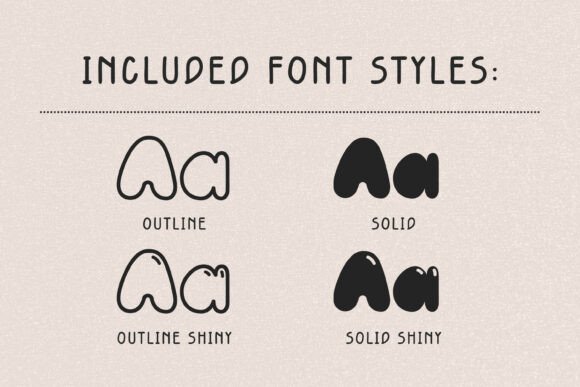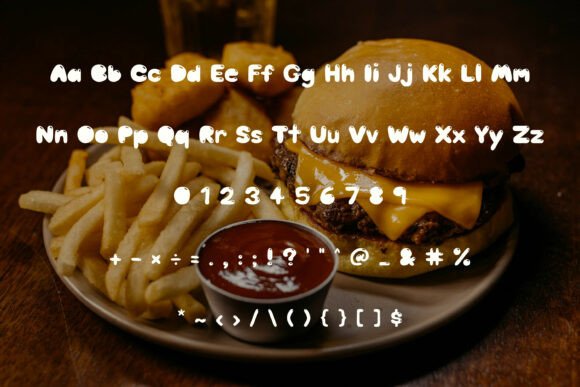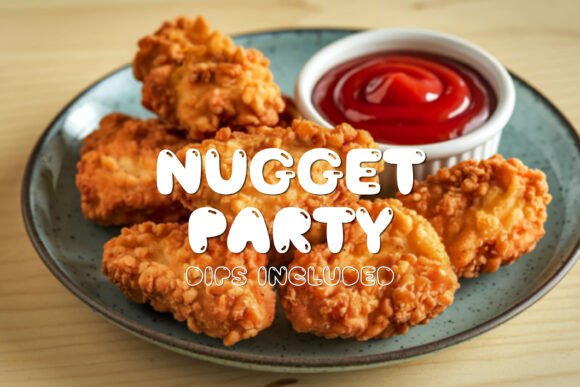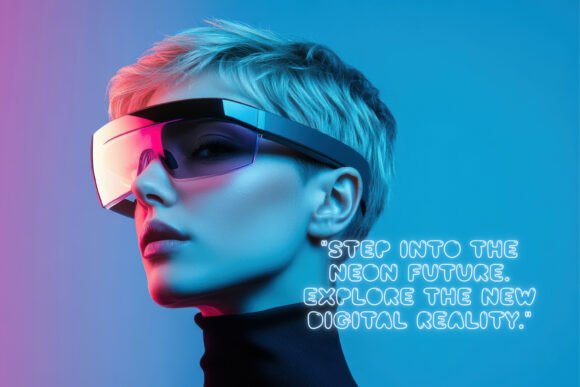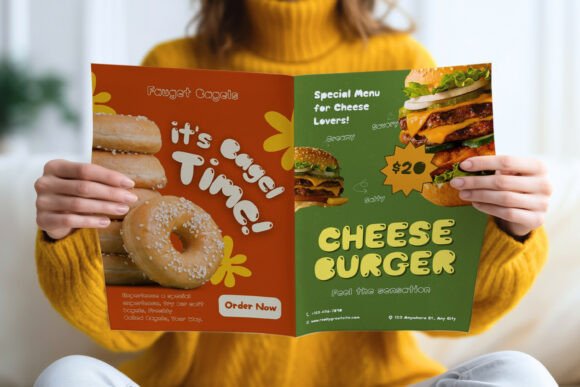
Introduction to Nugget Soda Font
Satisfy your craving for fun with Nugget Soda, a chunky display bubble font designed for maximum flavor and approachability.
This typeface features bold, plump letterforms characterized by soft, rounded contours and playful โglimmerโ accents that mimic the look of classic vinyl stickers or inflatable lettering Its massive visual weight and bouncy, uneven baseline provide a lighthearted, hand-drawn aesthetic that is perfectly suited for food and beverage branding, childrenโs snack packaging, playful restaurant menus, and engaging social media headers.
Key Features of Nugget Soda Font